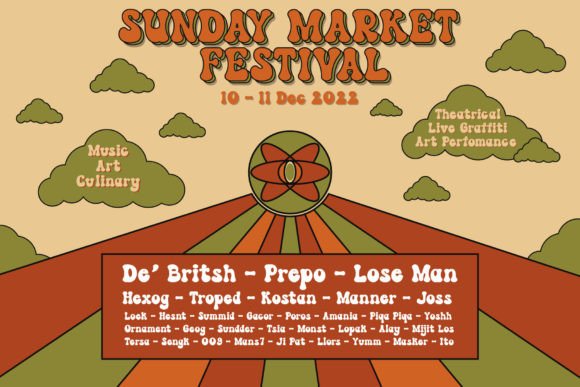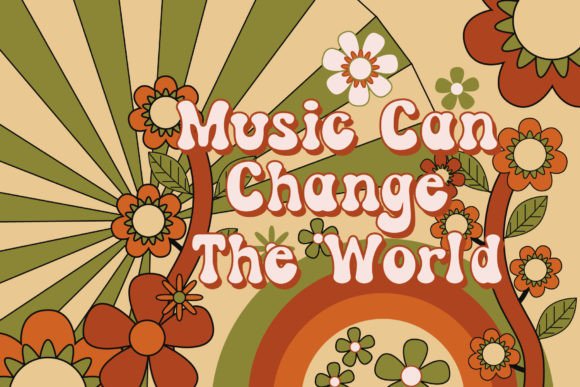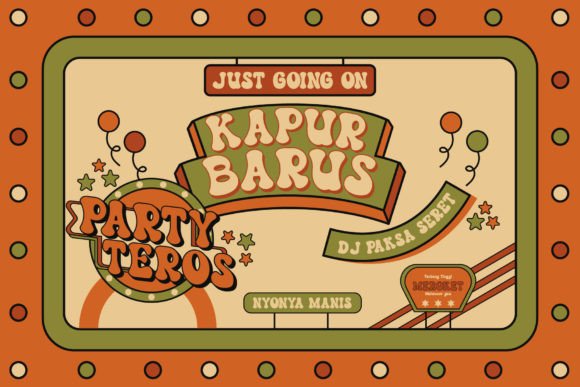
Introduction to Megantropose Font
megantropose is a font inspired by the retro 70’s – 80′ style with the current trend which is very much in demand by agencies to make their work more extraordinary.
for that, we help designers find their mood board design to be cooler You can incorporate this font into your designs such as posters, Instagram posts, YouTube banners, merchandise, logos, design quotes, to movie titles.
Megantropose Font offers exceptional quality and versatility, making it a valuable addition to your design toolkit. Whether you’re creating for personal projects or commercial use, Megantropose Font delivers professional results.